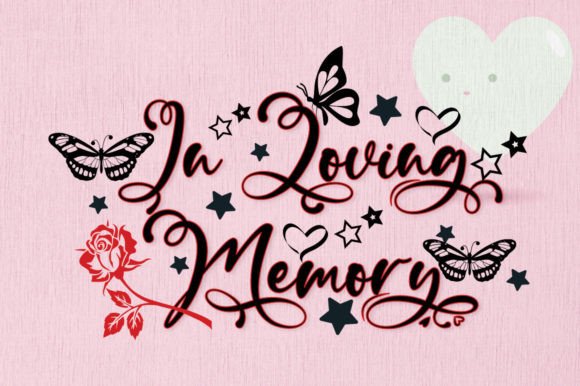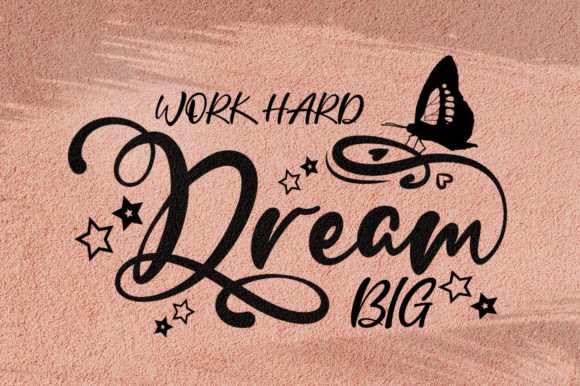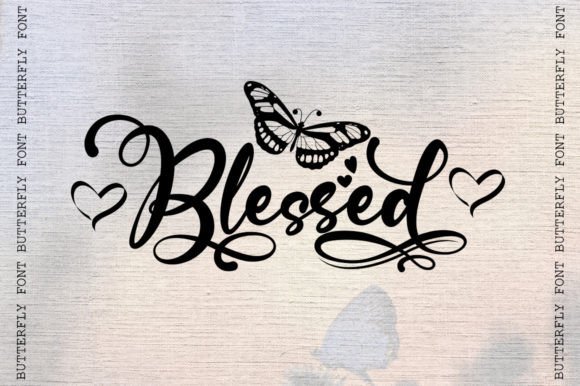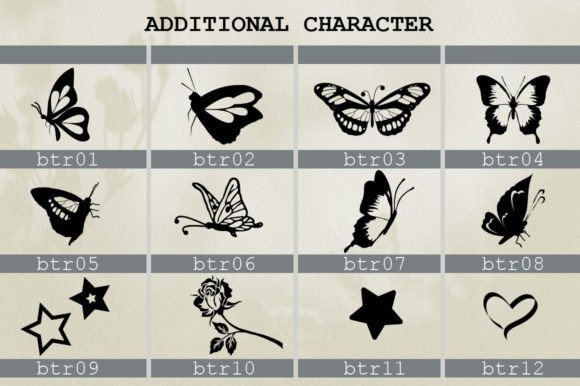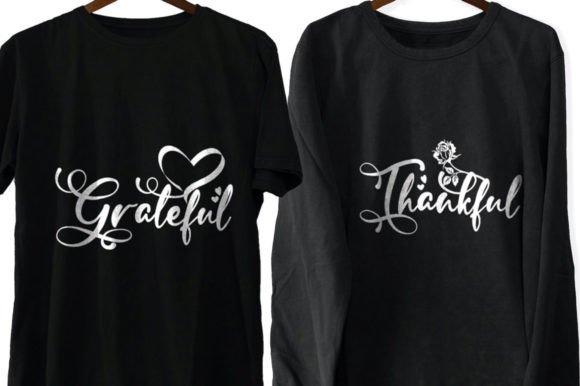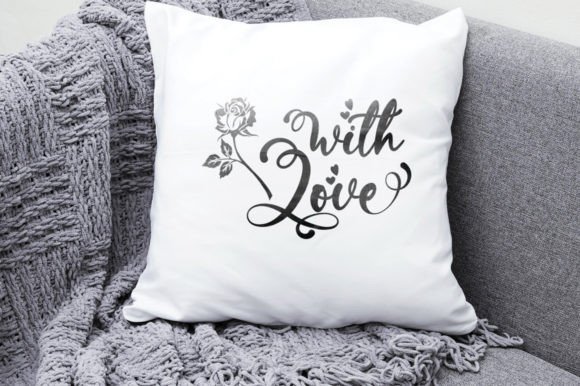
Introducing the Enchanting Butterfly Font: Elevate Your Designs with a Touch of Whimsy
Are you a designer or crafter looking for a font that embodies romance, sweetness, and a dash of playfulness? Look no further than the Butterfly Font, a beautiful calligraphy typeface that is sure to captivate your audience. This stunning font features extra butterfly characters and glyphs that dance along the baseline, giving your text a casual yet elegant touch.
The Charm of Butterfly Font
The Butterfly Font is a romantic and sweet calligraphy typeface that is perfect for creating quotes, social media posts, and other creative projects. The font’s unique feature is its extra butterfly characters and glyphs that are scattered throughout the text, giving it a whimsical and eye-catching appeal. The butterfly glyphs are intricately designed to dance along the baseline, adding a touch of elegance and sophistication to your designs.
Whether you’re a designer, crafter, or DIY enthusiast, the Butterfly Font is an excellent choice for your creative projects. The font’s versatility makes it suitable for a wide range of applications, from crafting inspirational quotes to designing social media graphics. The font’s casual yet elegant touch makes it perfect for:
- Creating inspirational quotes and posters
- Designing social media graphics and posts
- Crafting invitations and greeting cards
- Developing branding and marketing materials
Key Features of Butterfly Font
The Butterfly Font comes with a range of features that make it a standout choice for designers and crafters. Some of its key features include:
- Extra butterfly characters and glyphs
- Casual yet elegant touch
- Dancing glyphs along the baseline
- Romantic and sweet calligraphy style
- Perfect for quotes, social media posts, and creative projects
- Add extra butterfly characters and glyphs to give your text a whimsical touch
Tips and Tricks for Getting the Most Out of Butterfly Font
To get the most out of the Butterfly Font, here are some tips and tricks to keep in mind:
- Experiment with different font sizes and styles to find the perfect look for your design
- Use the extra butterfly characters and glyphs to add visual interest to your text
- Combine the Butterfly Font with other fonts and design elements to create a unique look
- Use the font for headings, titles, and quotes to add a touch of elegance and sophistication
The Butterfly Font is a beautiful and enchanting calligraphy typeface that is perfect for designers and crafters looking to add a touch of whimsy and romance to their creative projects. With its extra butterfly characters and glyphs, casual yet elegant touch, and versatility, this font is sure to captivate your audience and elevate your designs to new heights. So why wait? Download the Butterfly Font today and start creating stunning designs that will leave a lasting impression!